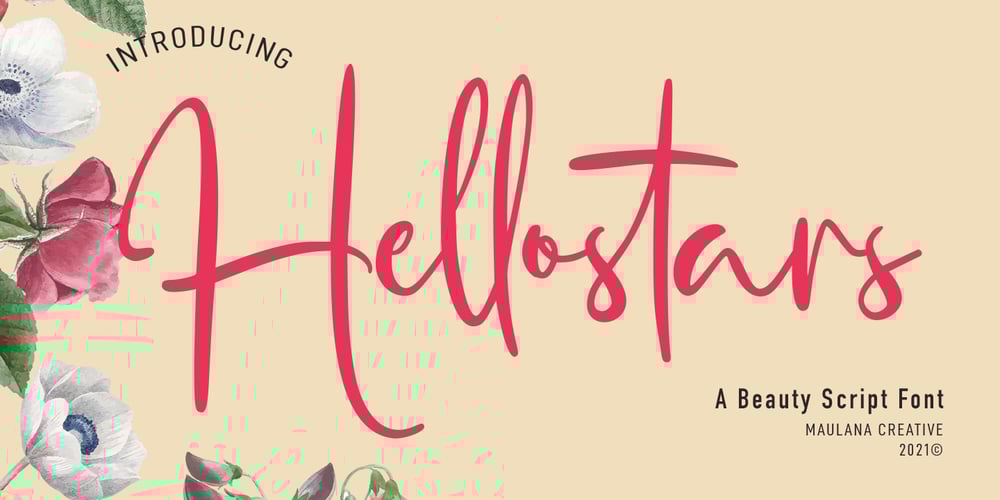
Hellostars Font Family was designed by Gilang Maulana and published by Maulana Creative. Hellostars contains 1 styles and family package options. Hellostars is a casual script font. With thin stroke, condensed and fun character with a lot of natural ligatures. To give you an extra creative work. Hellostars font support multilingual more than 100+ language. This font is good for logo design, Social media, Movie Titles, Books Titles, a short text even a long text letter and good for your secondary text font with sans or serif. Make a stunning work with Hellostars font. Cheers, MaulanaCreative